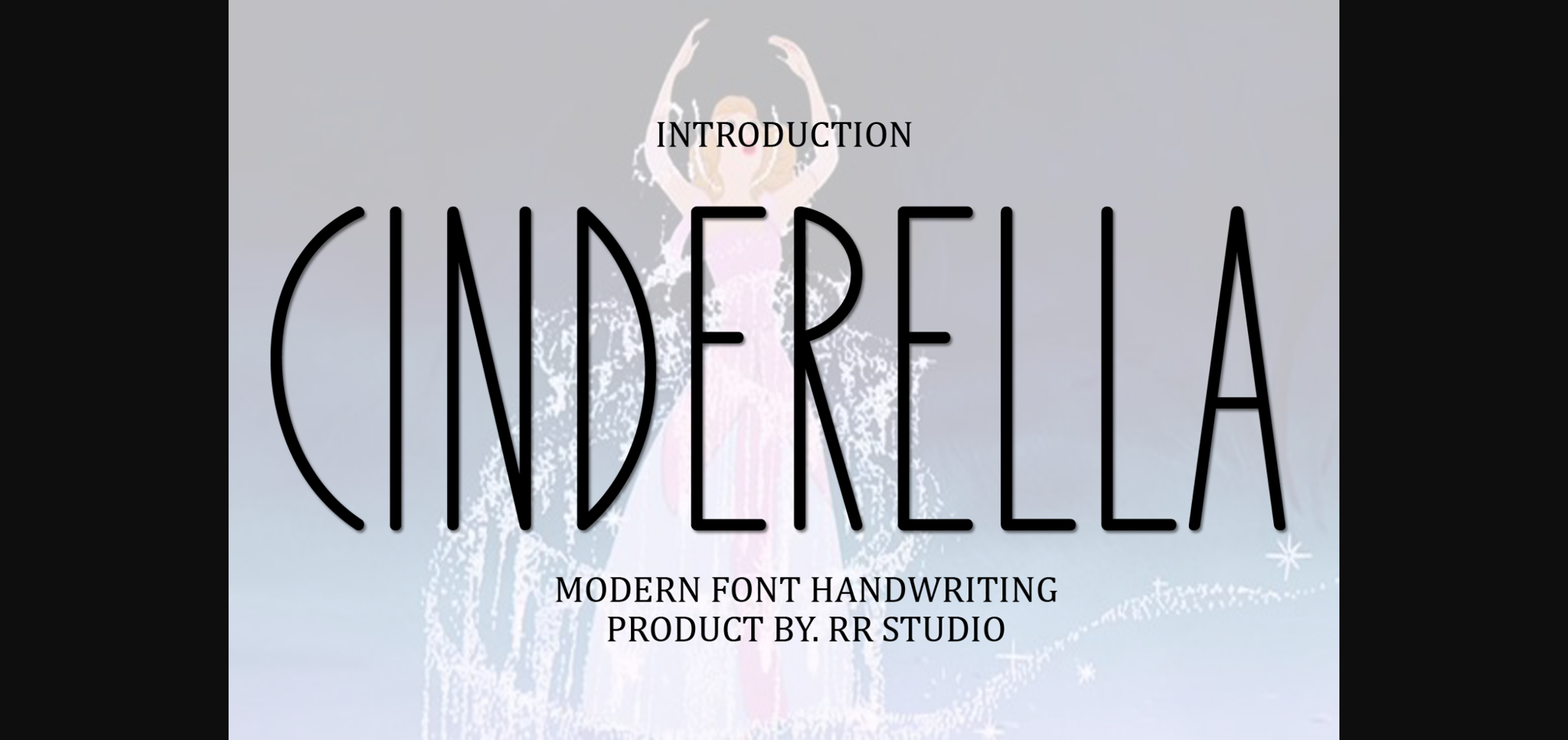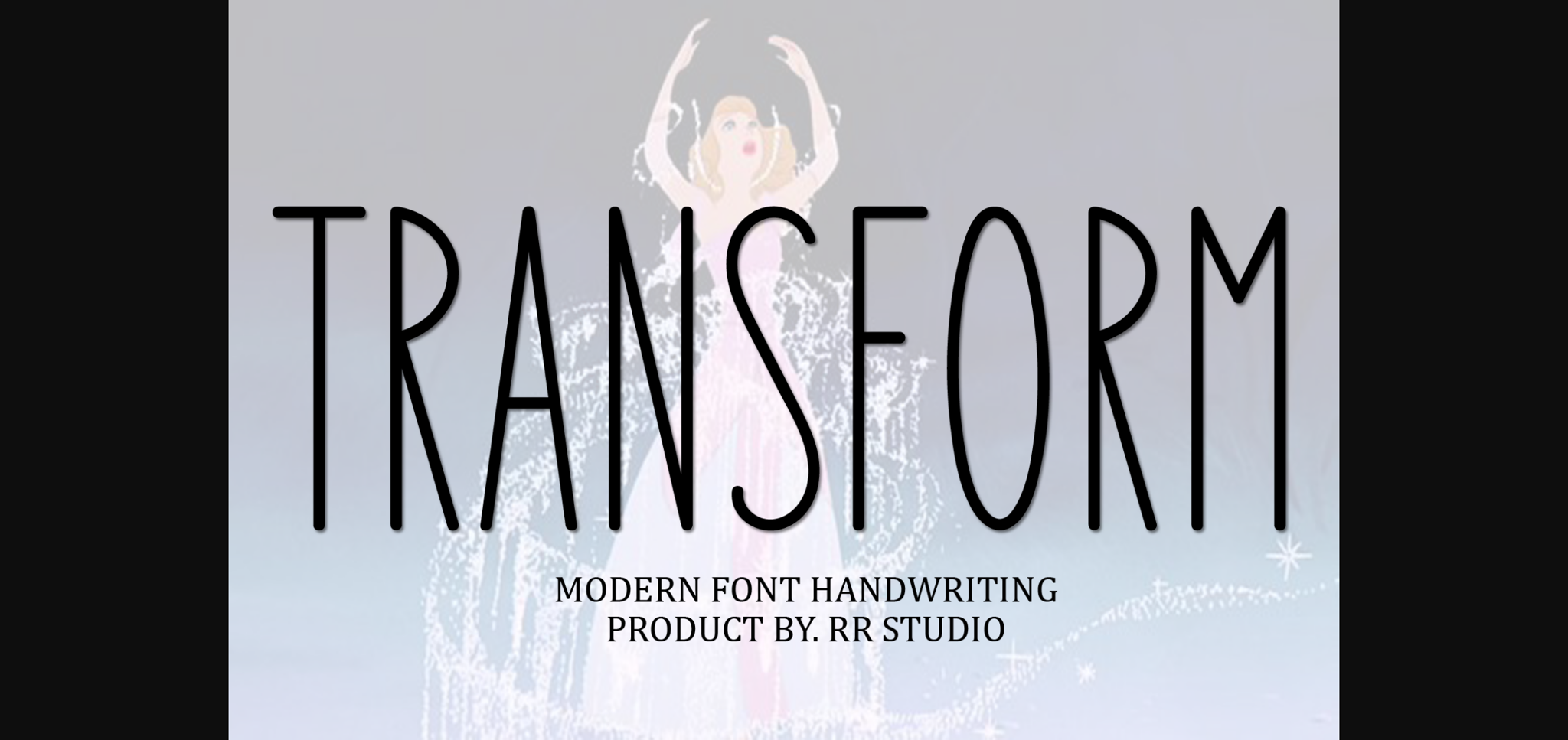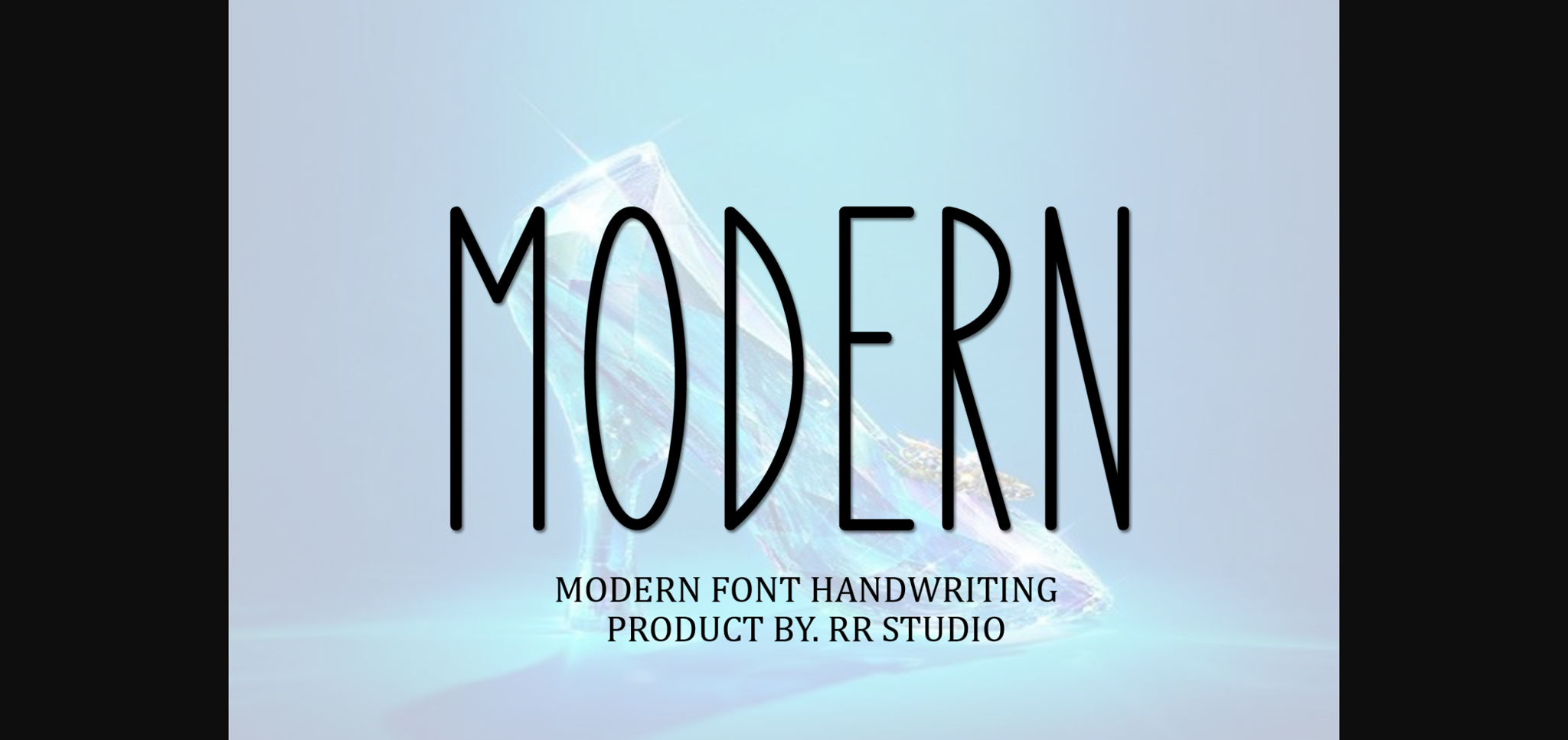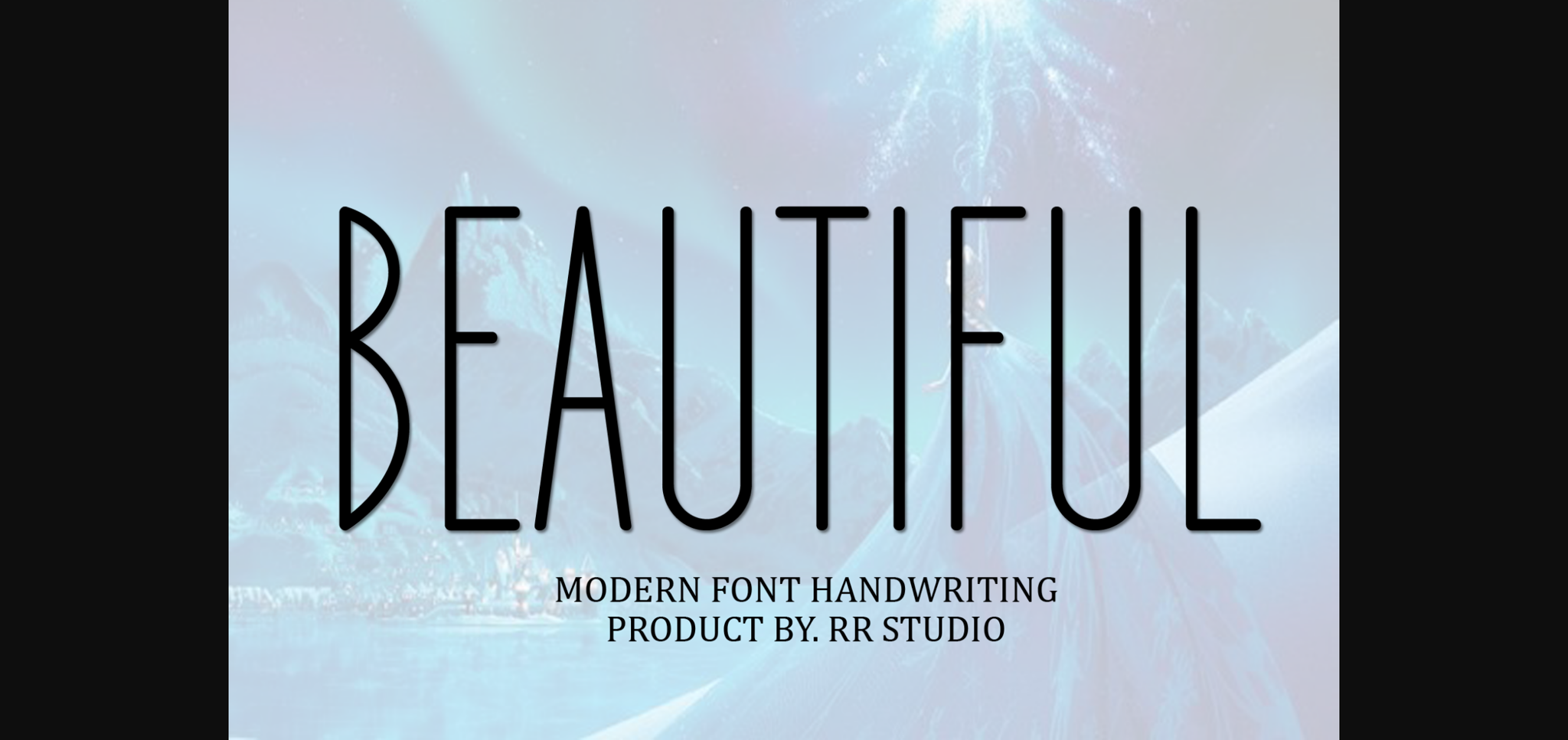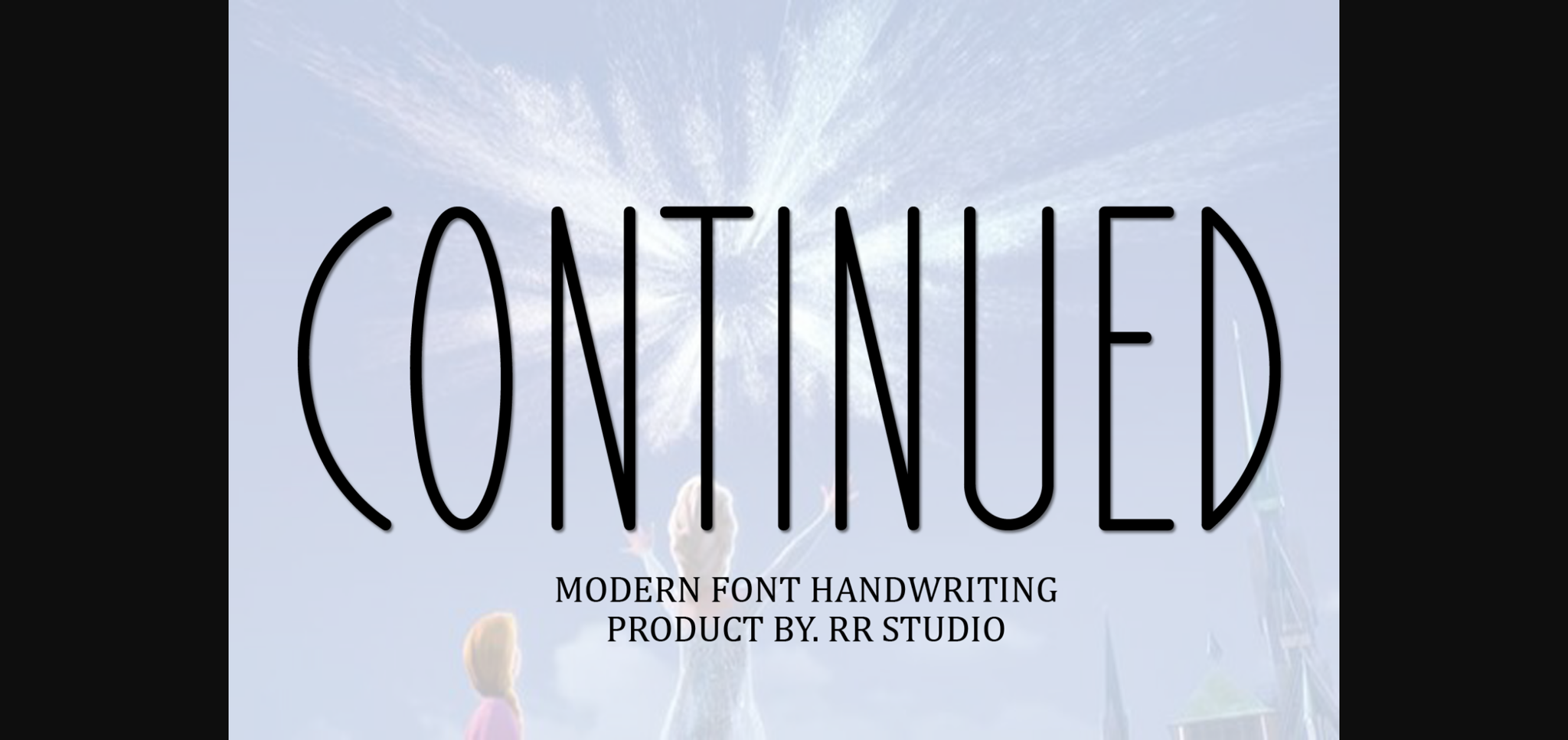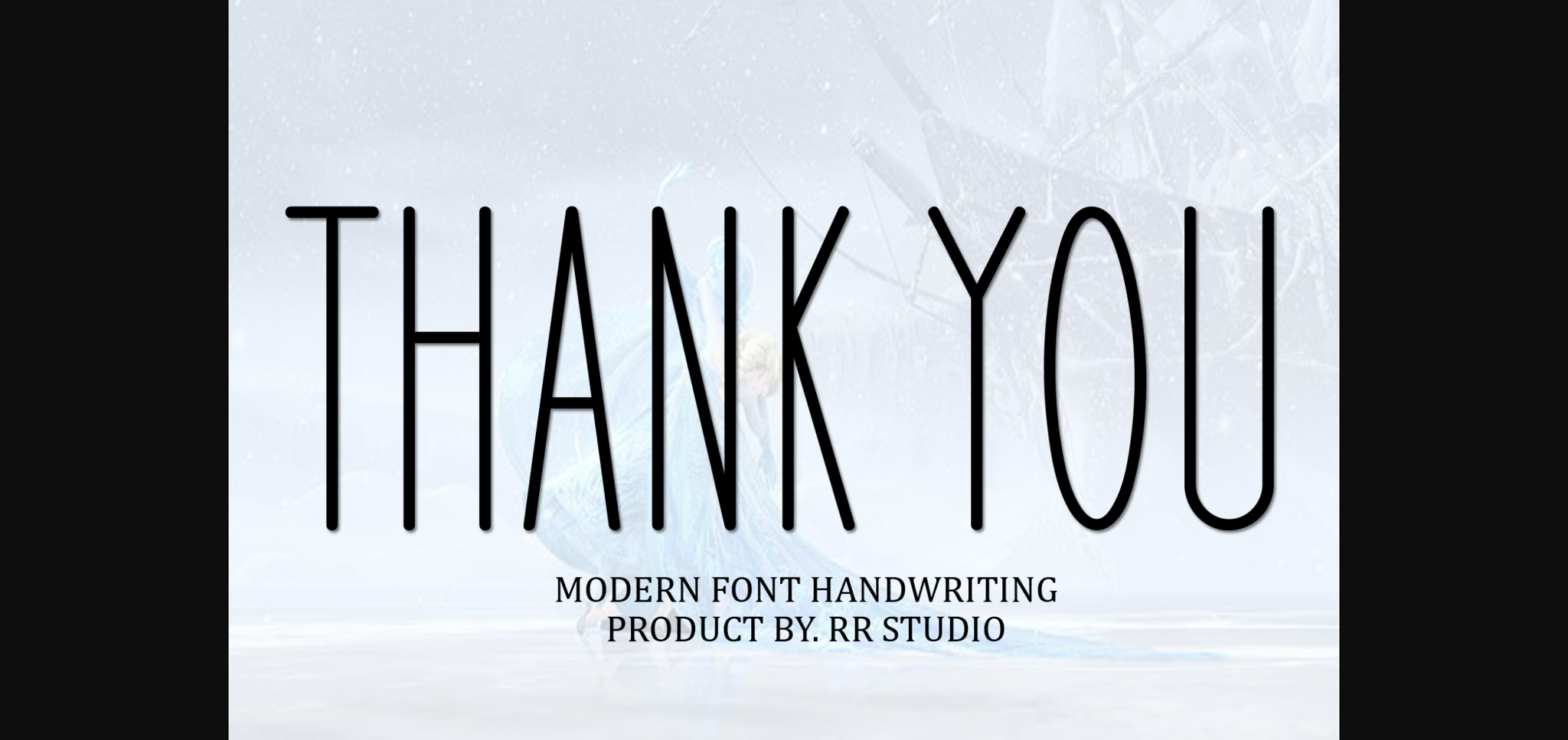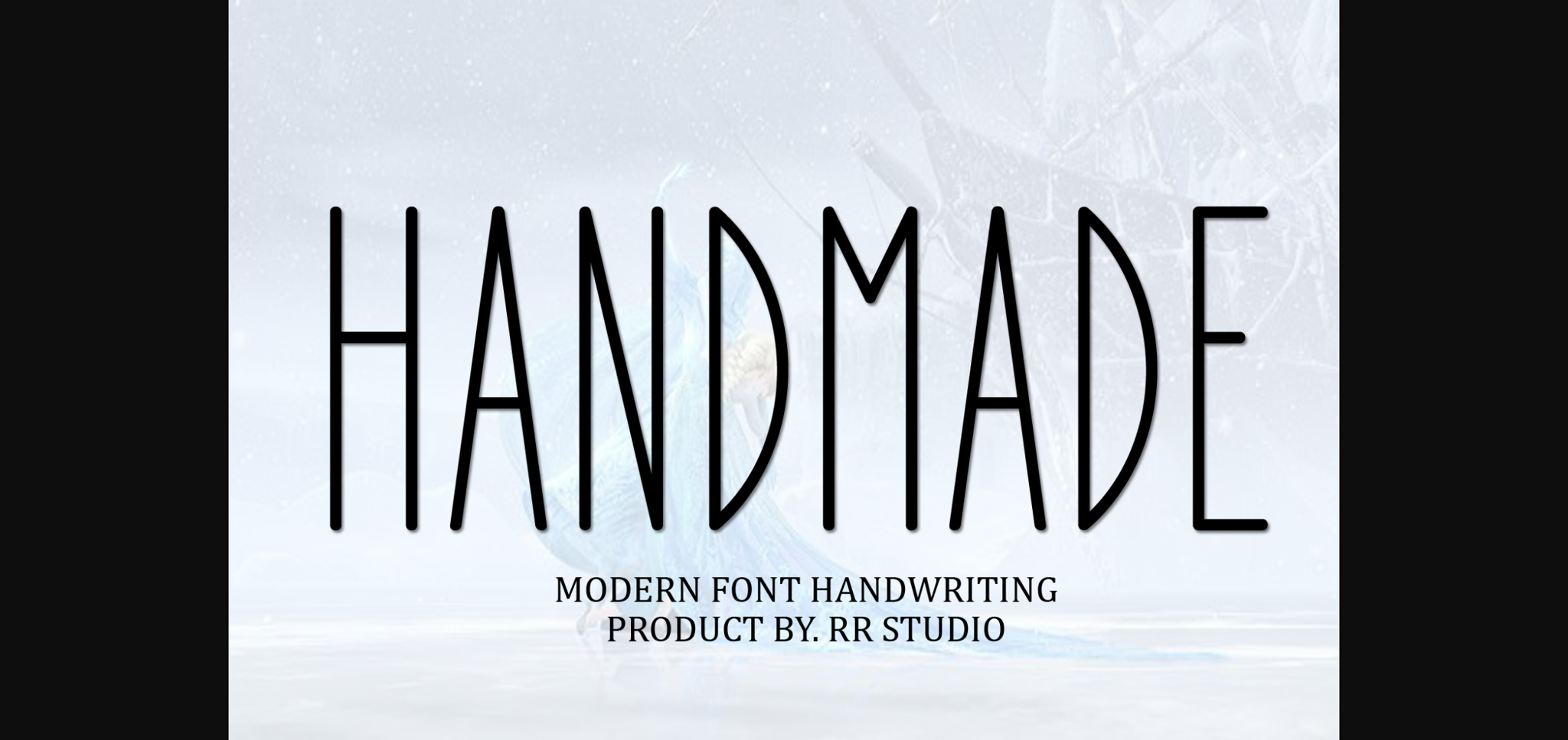
Cinderella Font
About Cinderella Font
Cinderella is a straightforward and tidy sans-serif font that embodies simplicity and clarity. Its clean lines and balanced proportions make it perfect for various design applications, from body text in publications to headers on websites. Grinch maintains readability while offering a modern and uncluttered aesthetic for your projects.